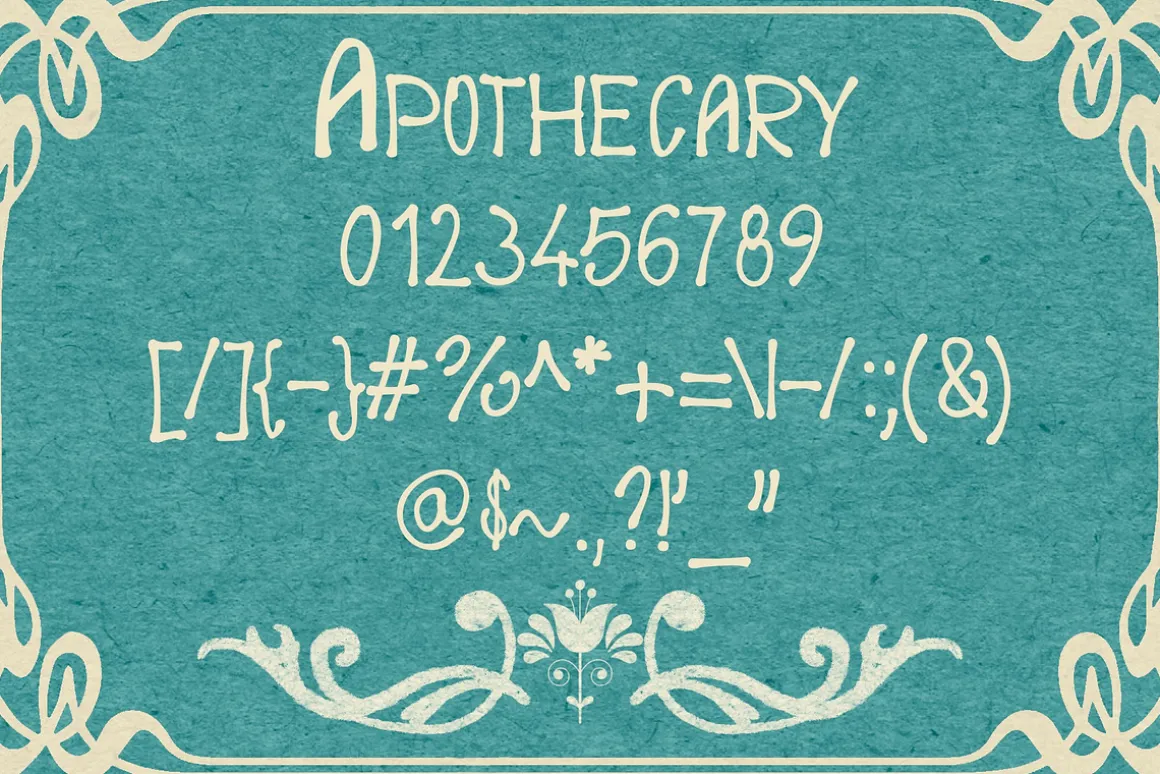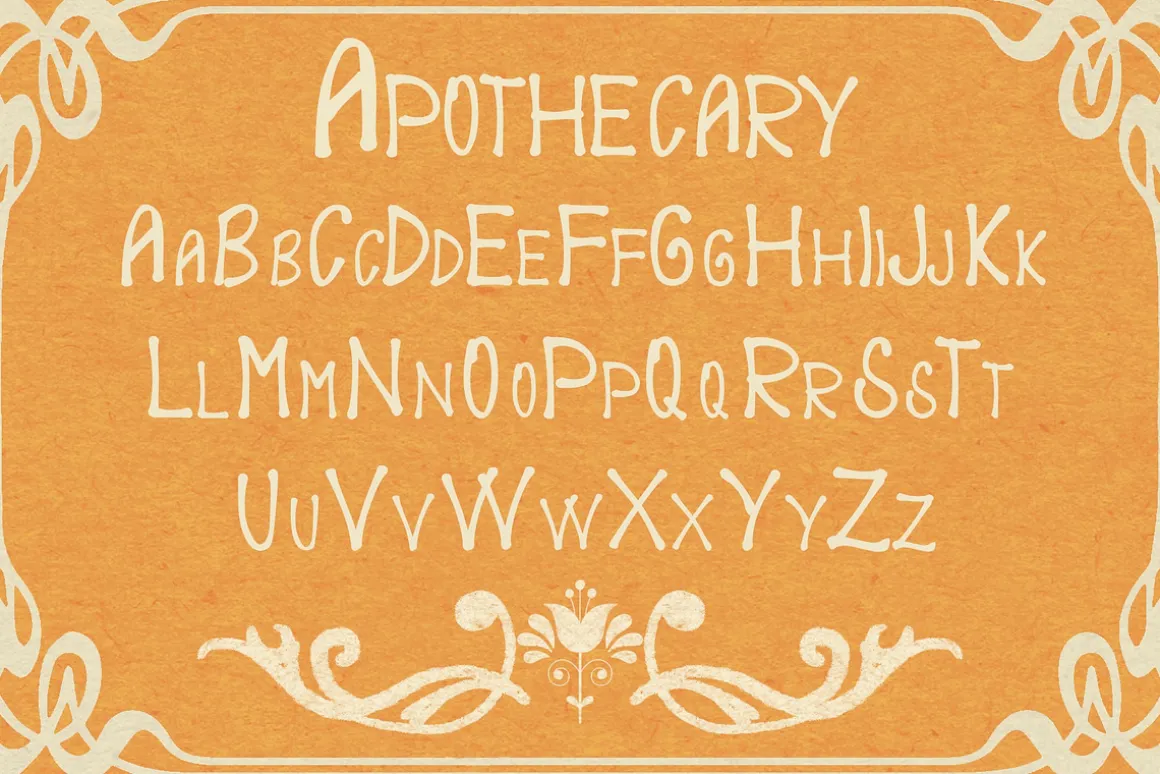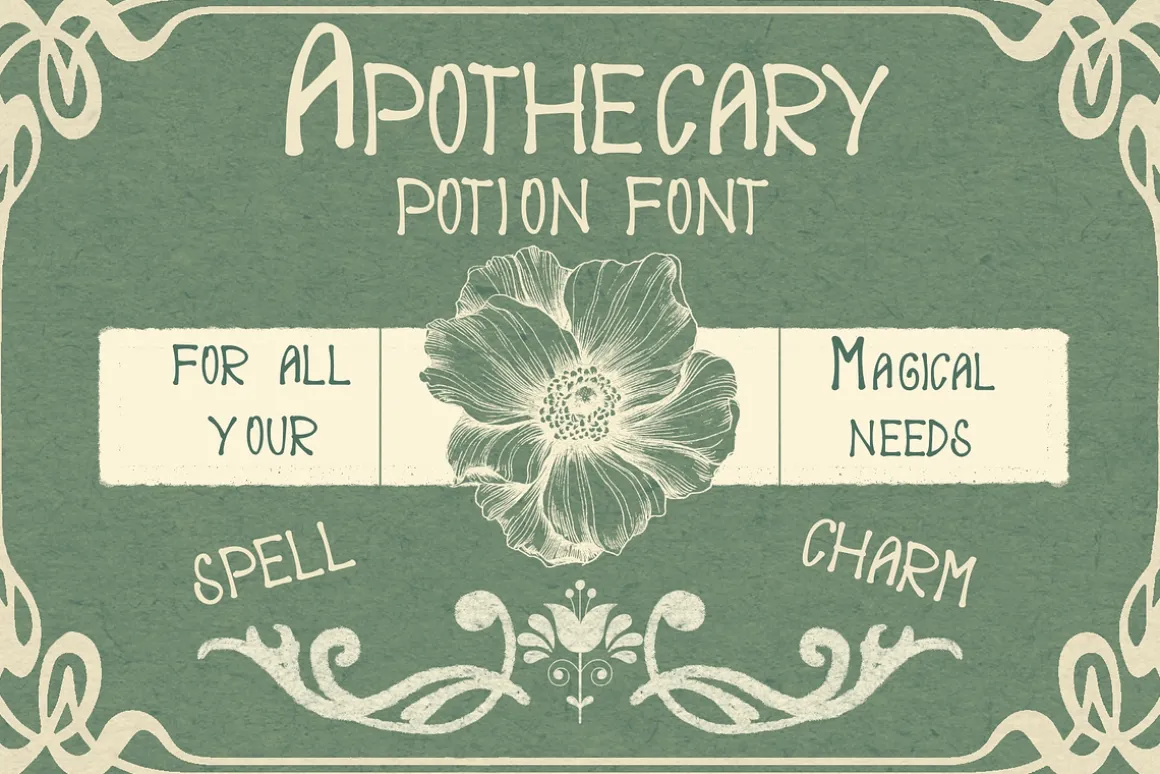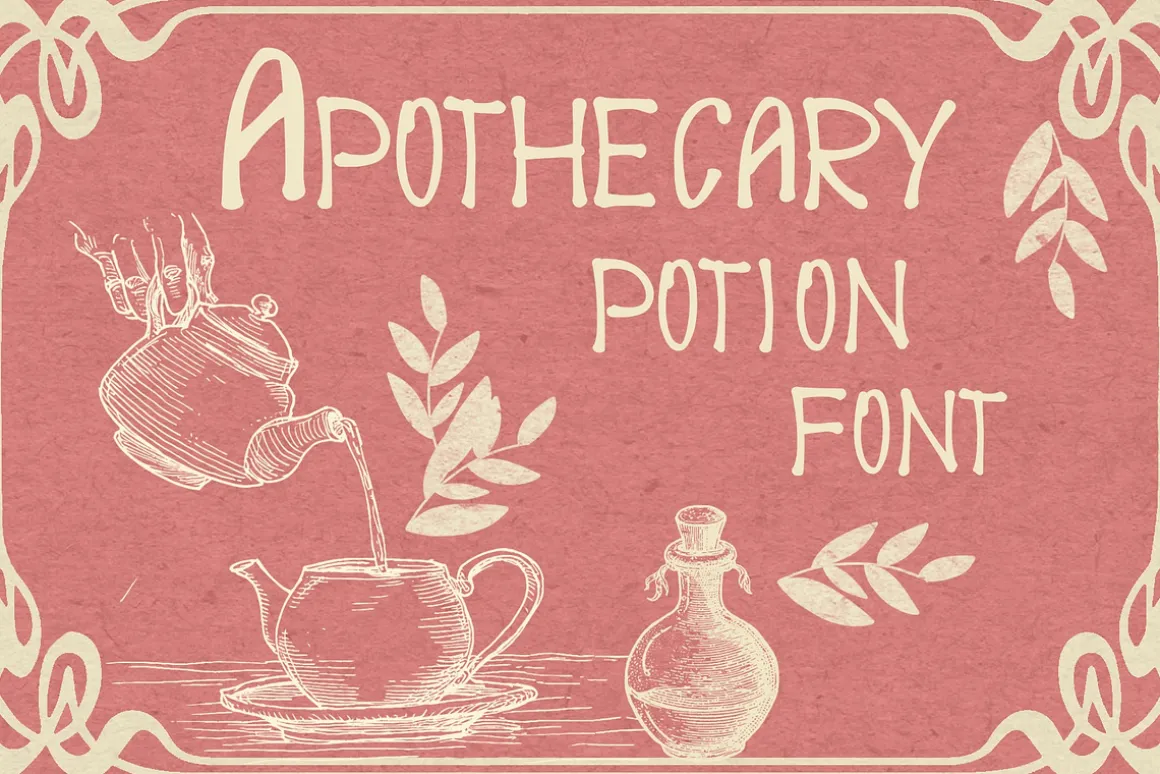
Welcome to the enchanting world of vintage apothecary potions, where time stands still and nature’s secrets are preserved in glass vials. Each potion tells a story, crafted with wisdom and care by the skilled hands of ancient alchemists. Explore the whispers of history and the magic of botanicals captured in handwritten script, as if penned by a forgotten sorcerer. Step into this mystical realm and unlock the mysteries of bygone remedies, conveyed through the elegance of a vintage apothecary potion handwritten font.